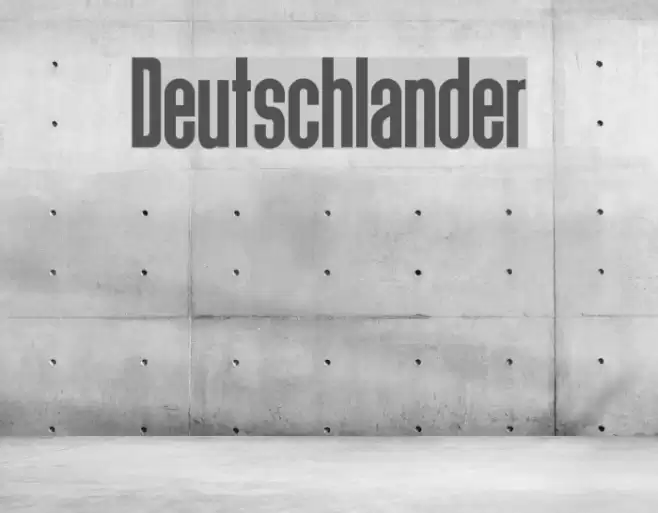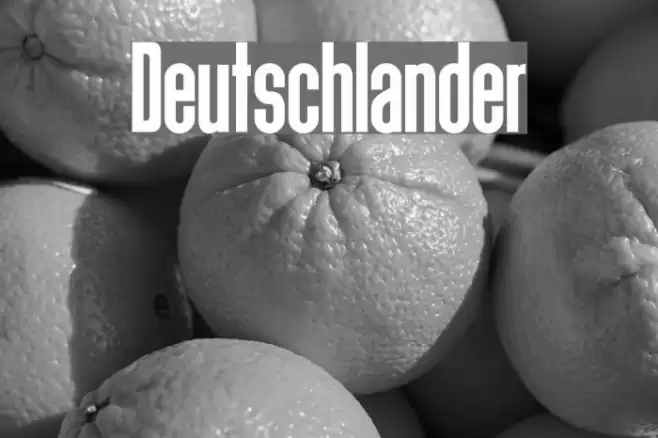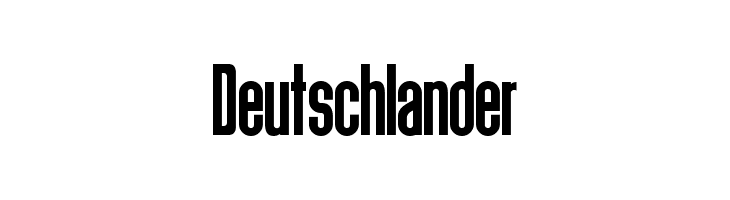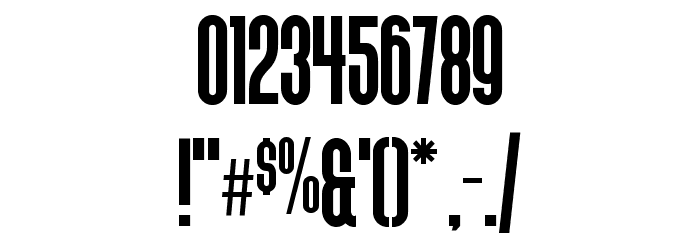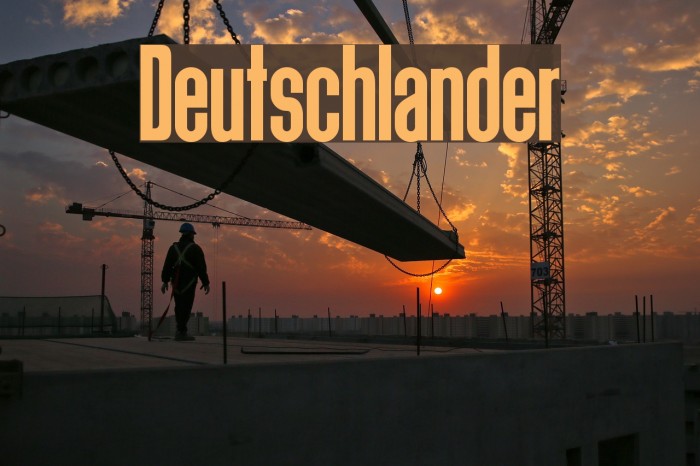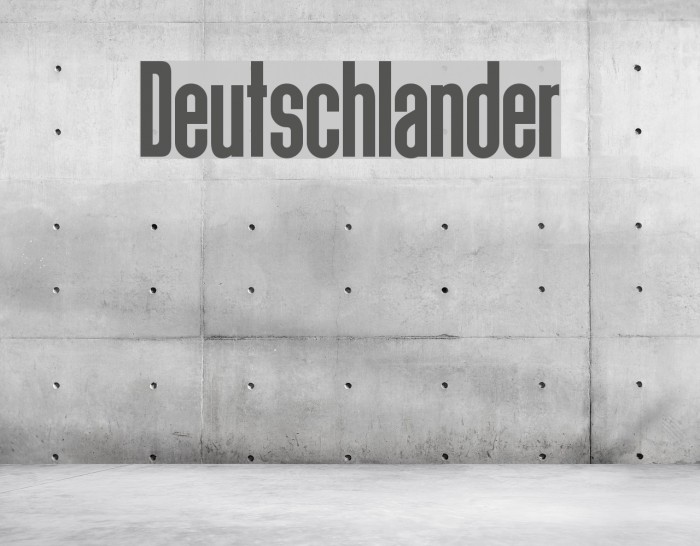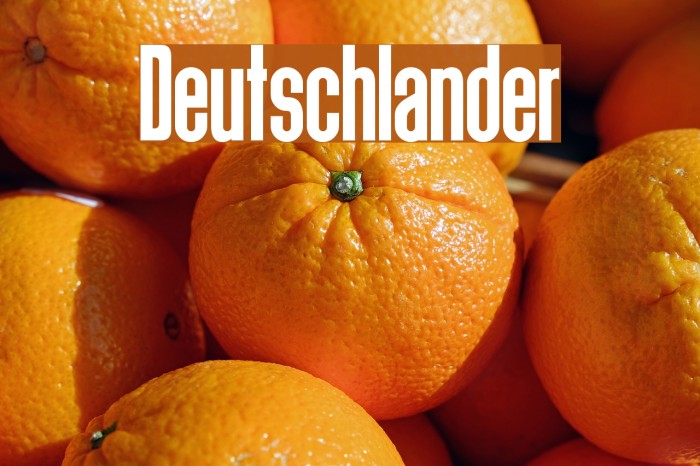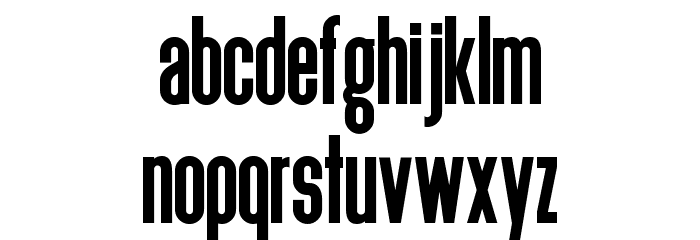
Deutschlander Font
Deutschlander Description
This font features a bold and commanding presence with its tall, condensed letterforms. The uppercase letters are particularly striking, with a strong vertical emphasis that makes them stand out. The lowercase letters maintain the same boldness, ensuring consistency across text. The numbers are equally robust, offering clarity and impact. Special characters are designed to match the overall bold aesthetic, making them suitable for attention-grabbing designs. The font's style is reminiscent of vintage poster typography, yet it maintains a modern edge with its clean lines and lack of serifs.
A bold, condensed font with a vintage yet modern appeal, ideal for impactful designs from Uncategorized fonts.
- Proposed Projects: This font is perfect for poster designs, headlines, branding projects, and any application where a strong visual impact is desired.
- Character Spacing: Tight
- Overall Style: Vintage, Modern